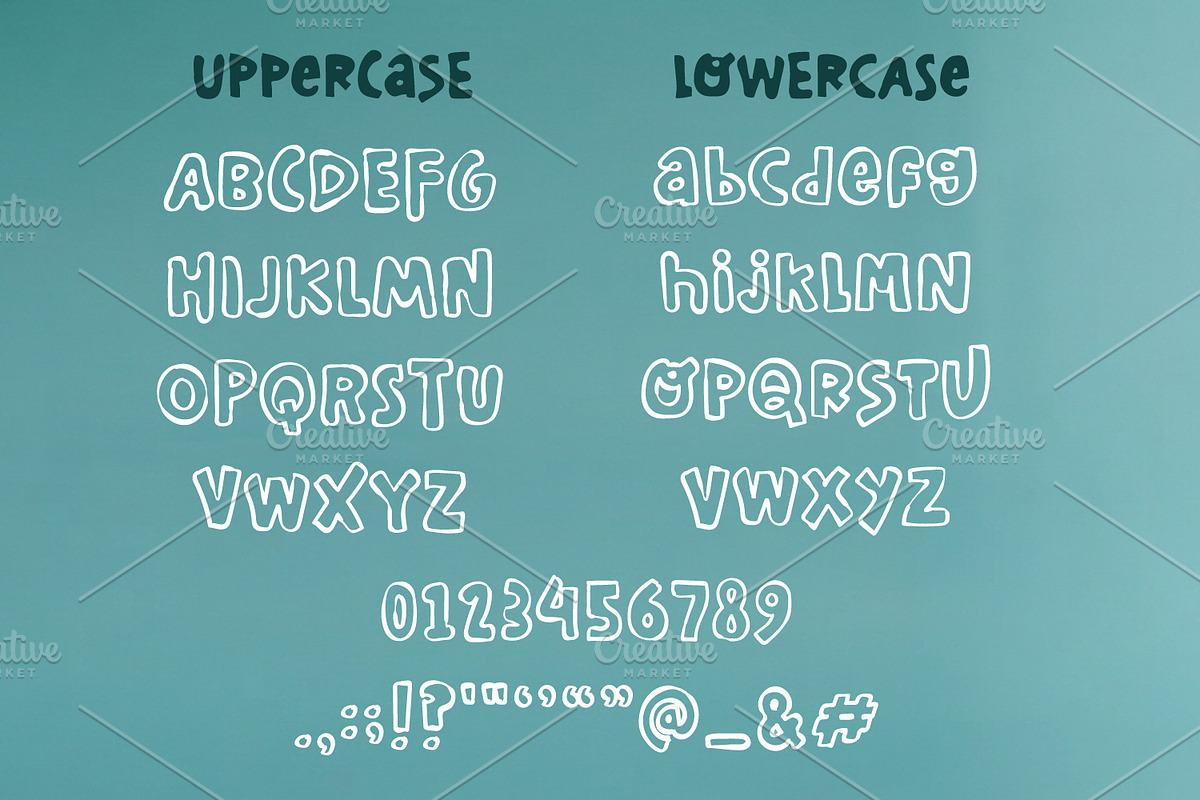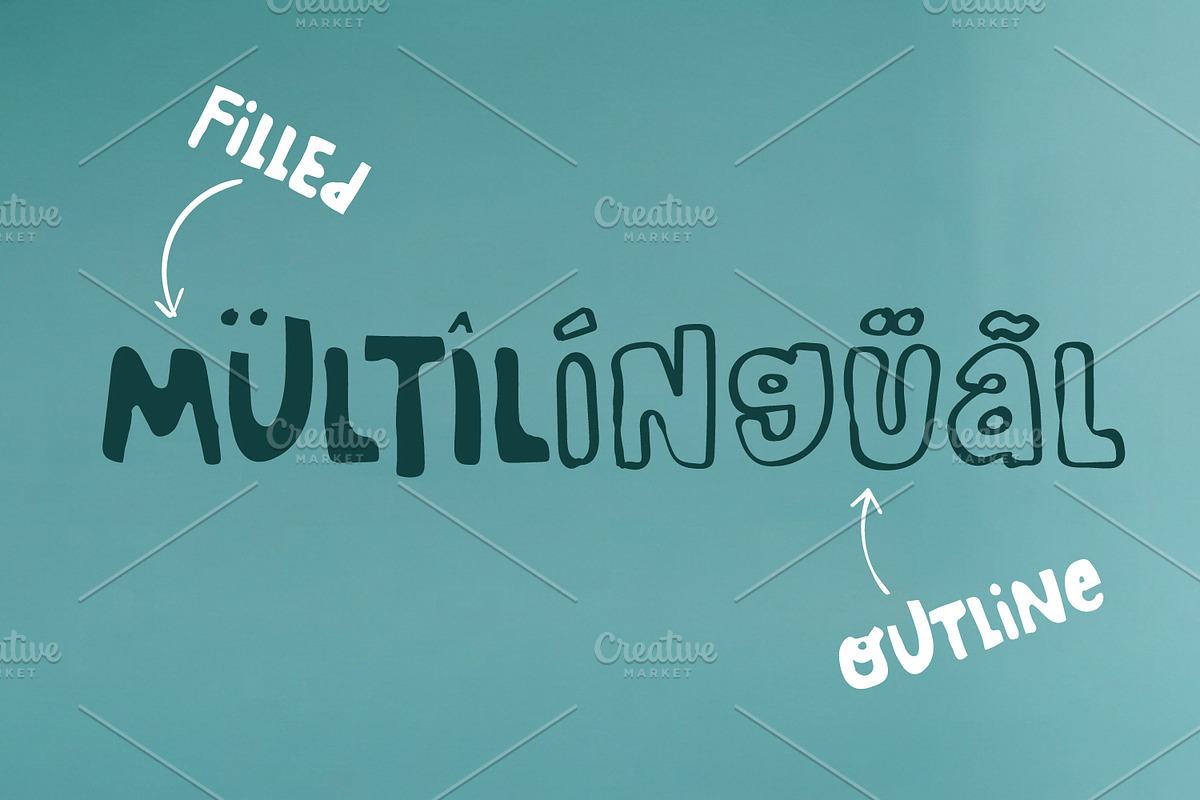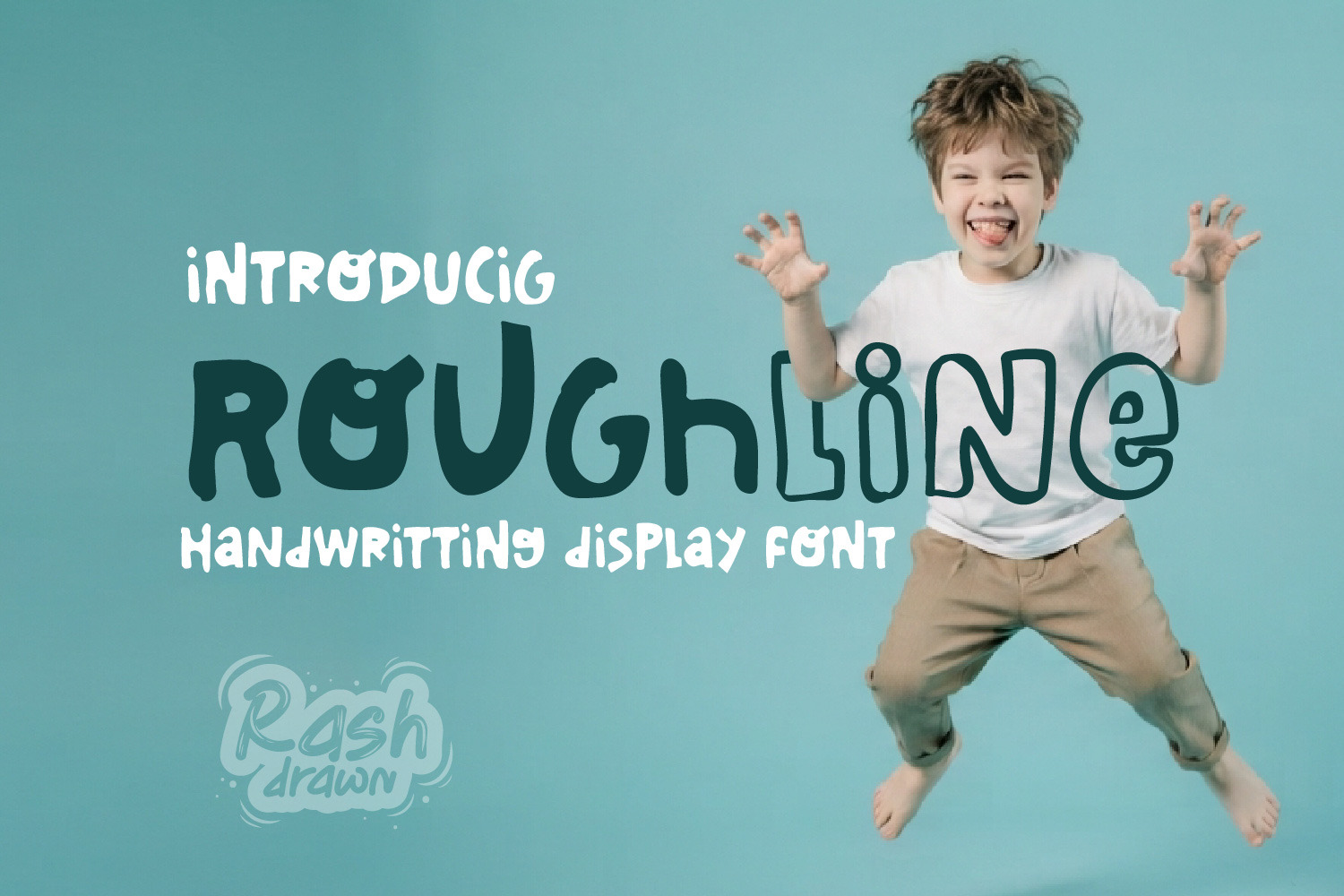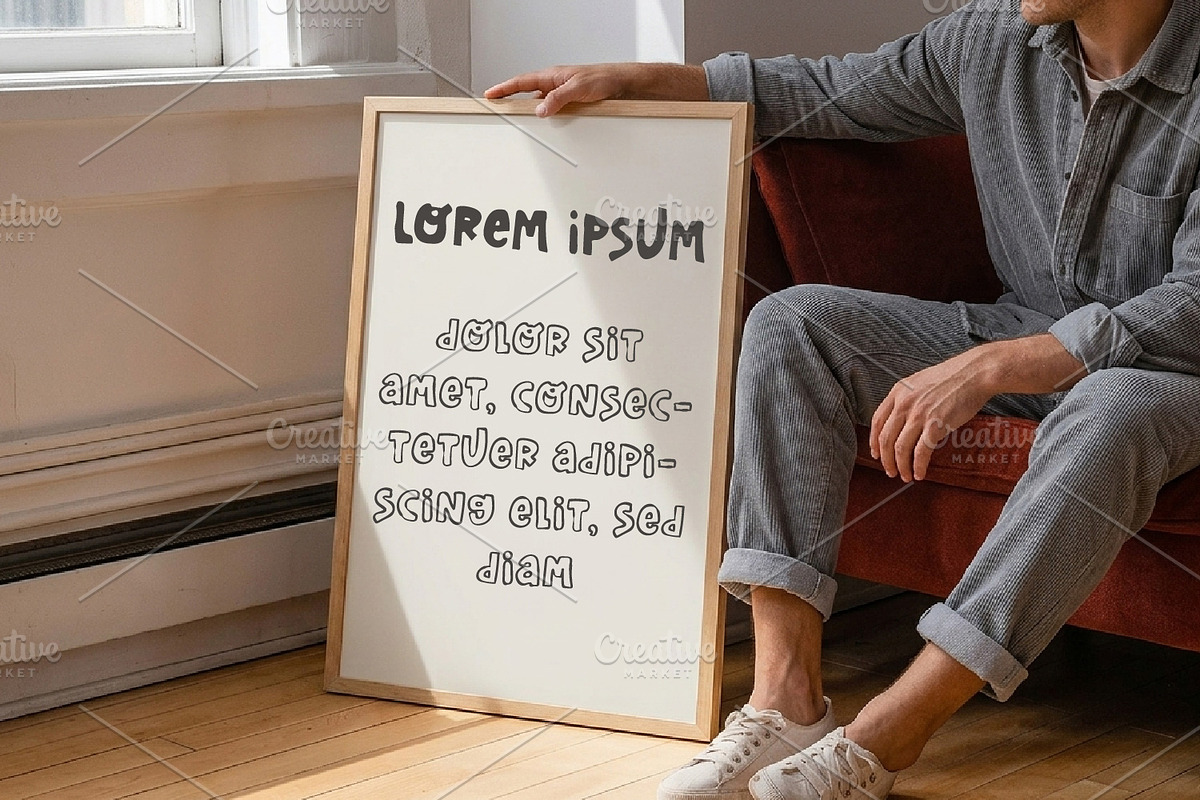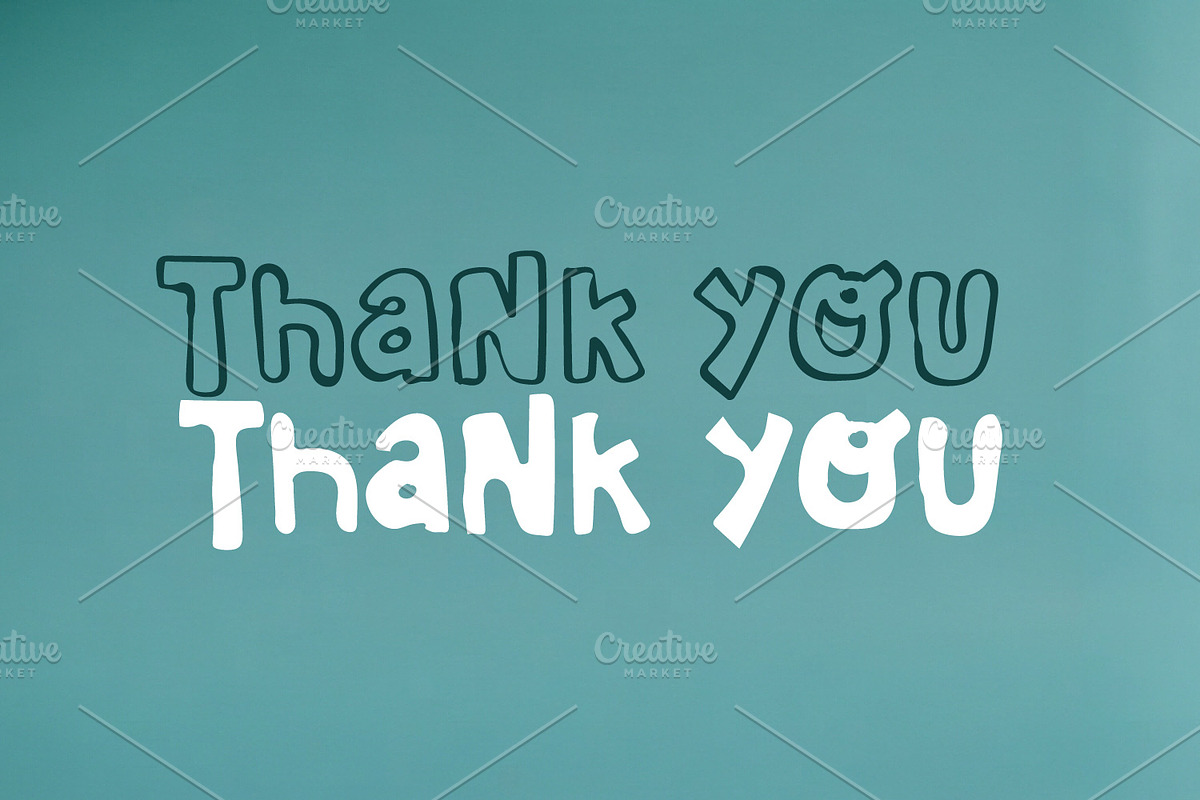
Roughline - Handwriting Display Font
Introduce Roughline, a playful, casual, and quirky handwritten display font. This font brings a fun, energetic, and authentic handmade feel to your designs, making it perfect for children's books, quirky branding, posters, t-shirt designs, social media graphics, and much more!
Dual Styles: Includes both Filled and Outline variations that you can easily mix and match.
Complete Character Set: Uppercase letters, lowercase letters, numbers, and punctuation marks.
Multilingual Support: Fully supports a wide range of international languages.